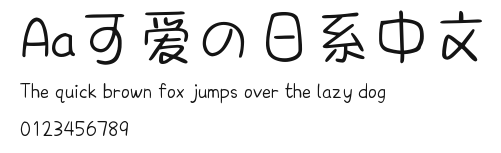
About Aa可爱の日系中文.ttf
Aa可爱の日系中文.ttf is a modern, elegant sans-serif font designed for ultimate readability and visual harmony. Perfect for branding, headlines, web design, and print materials.